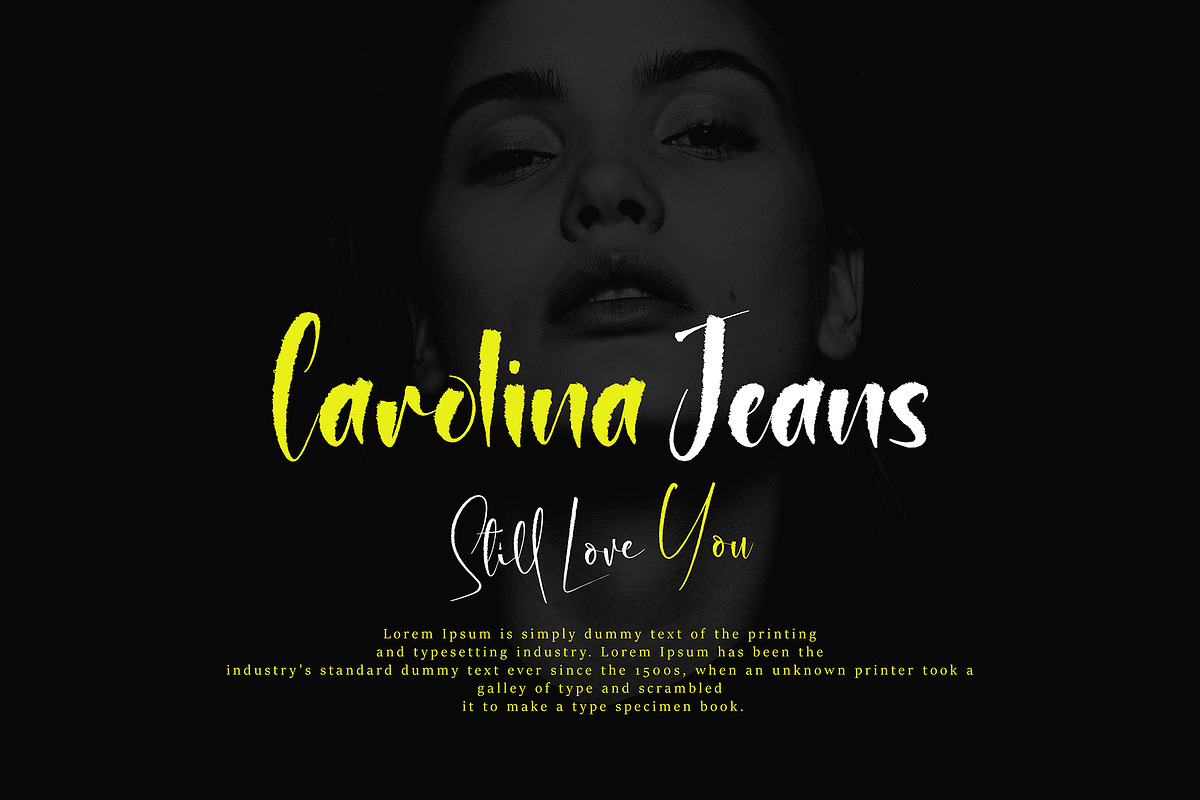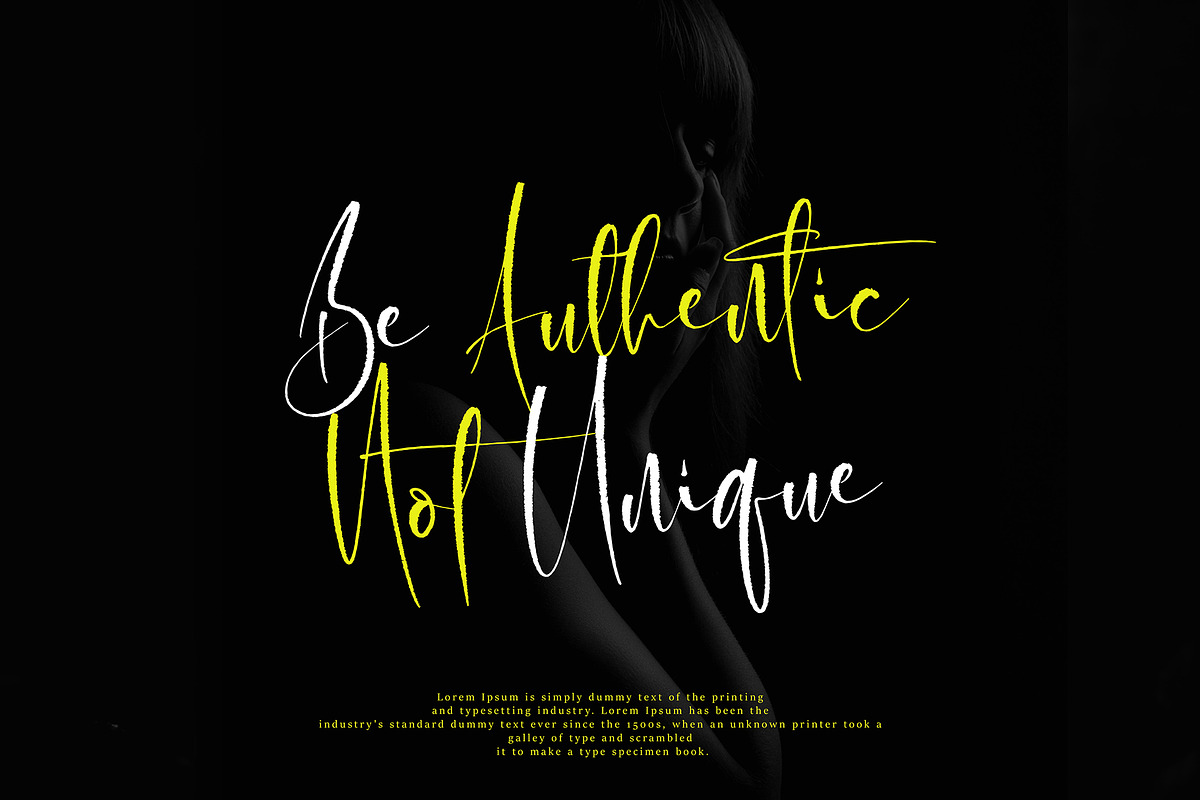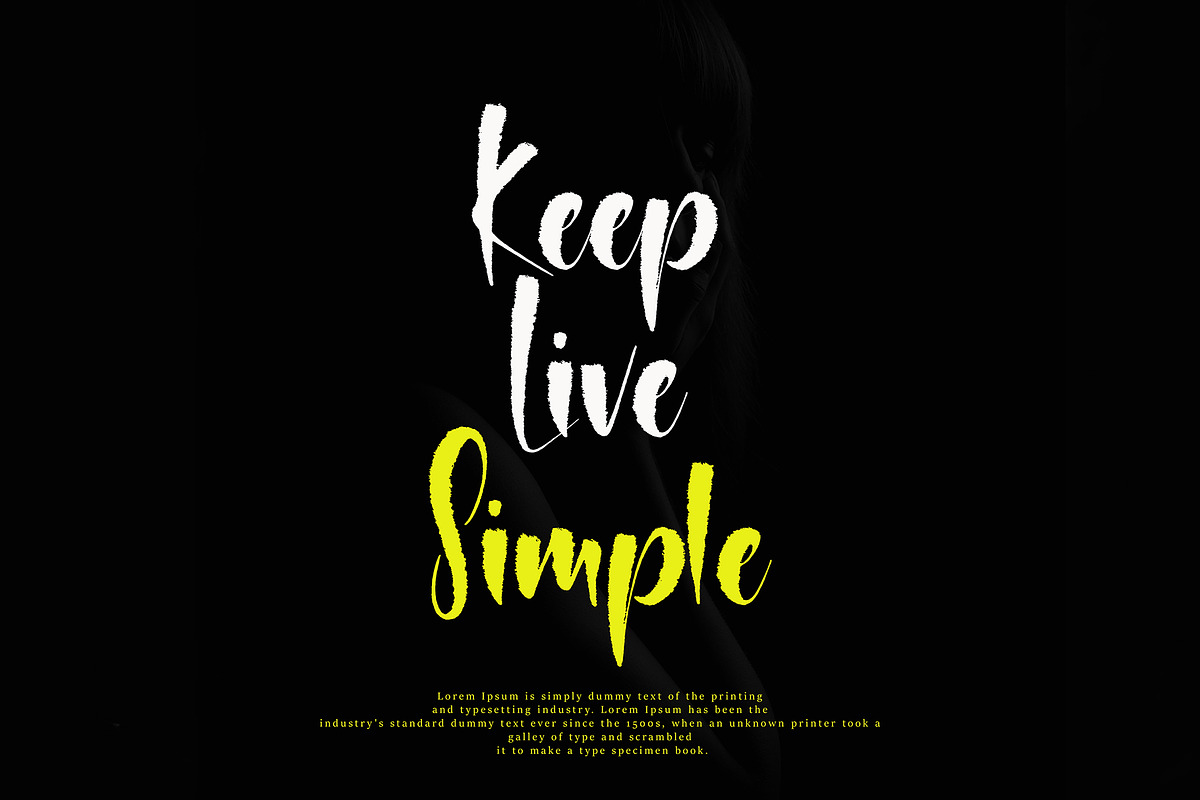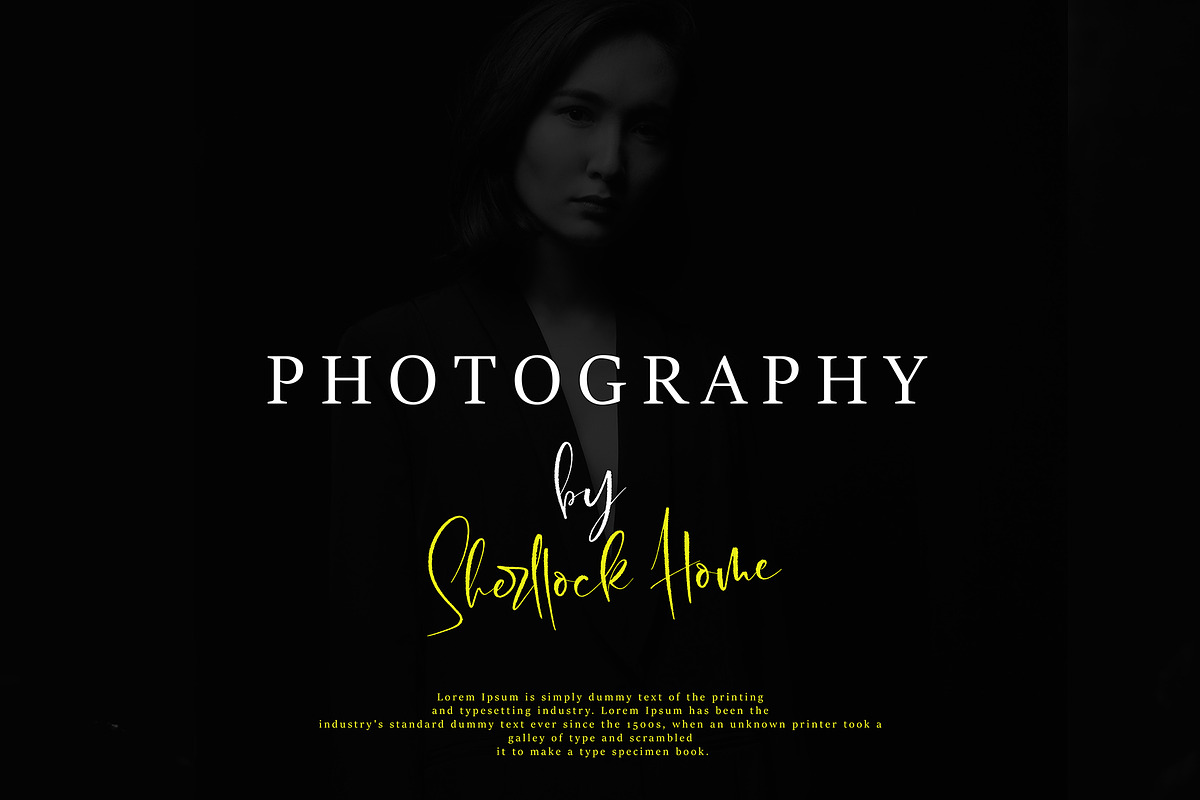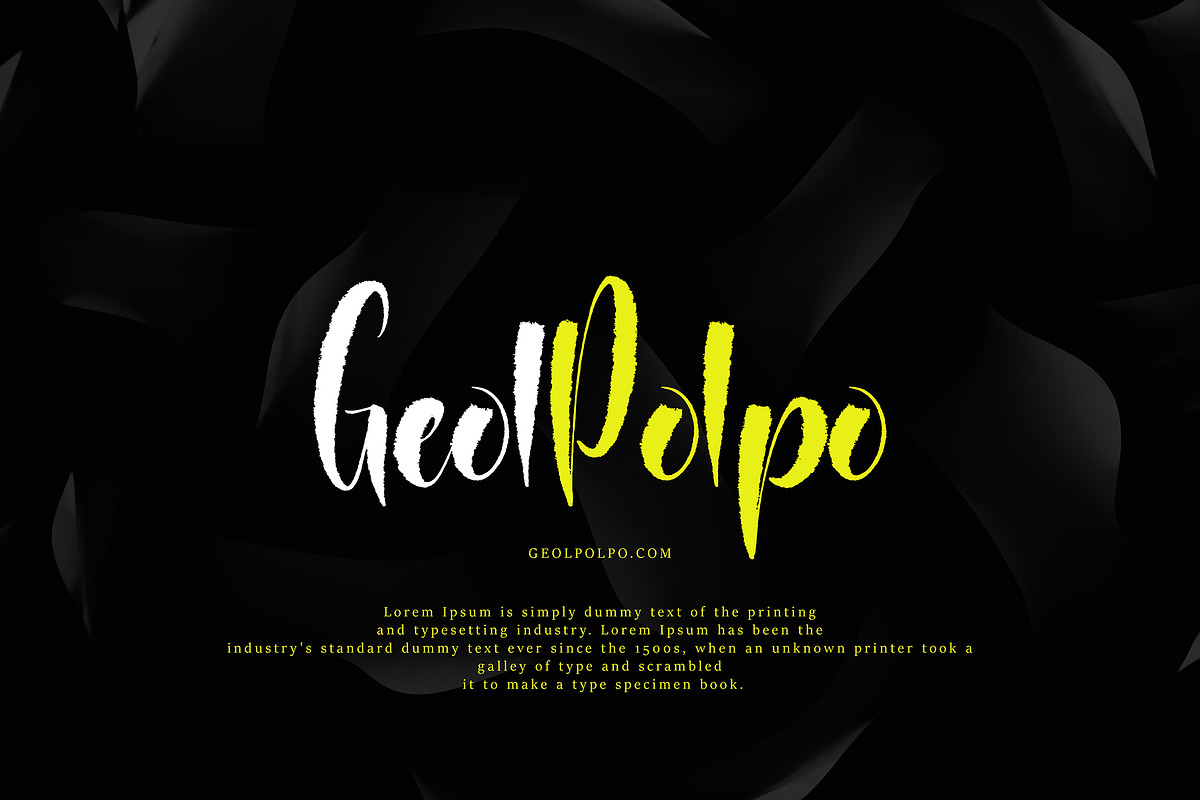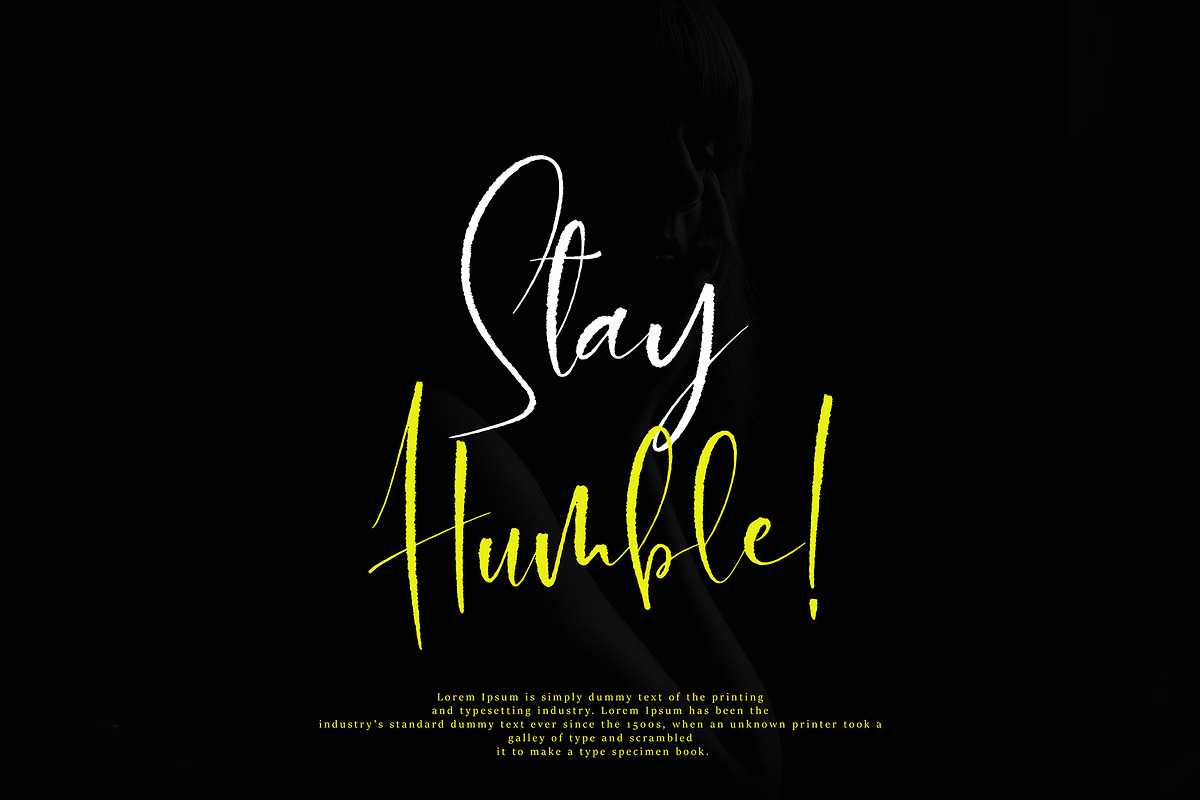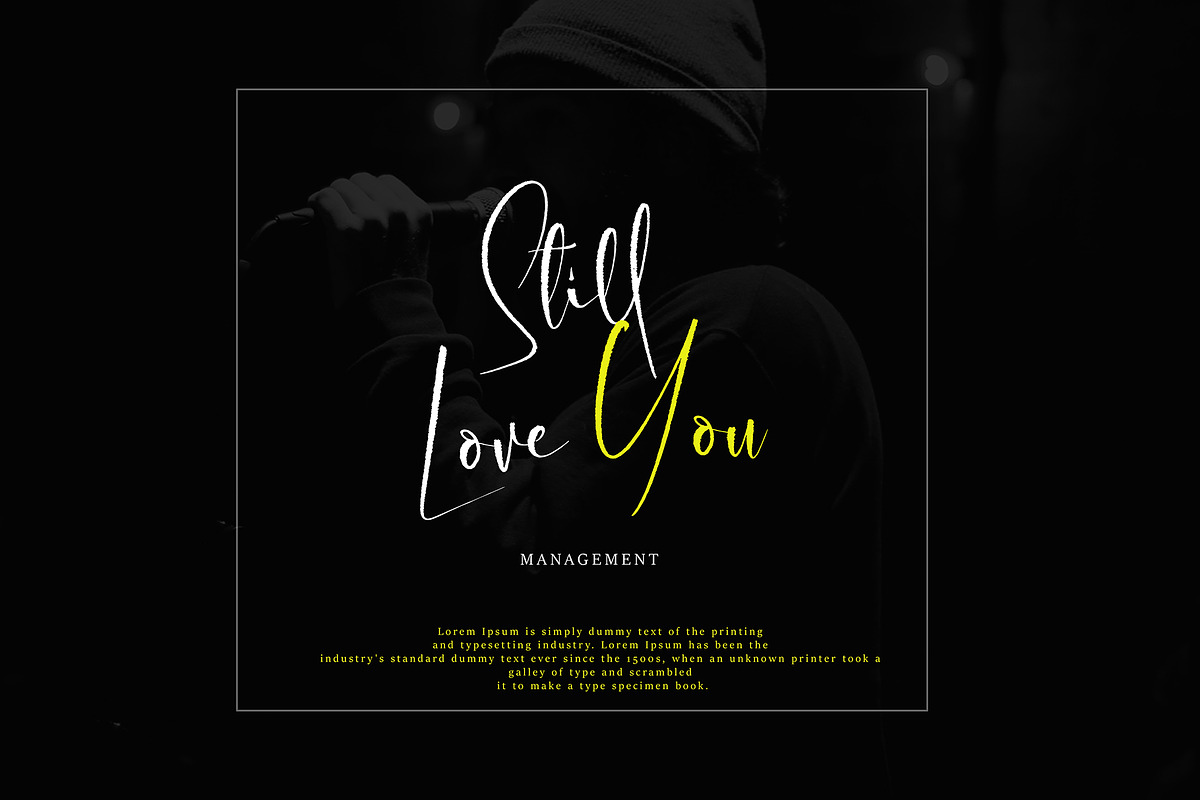
Shirasata Font Duo
Shirasata Font Duo font with modern Handwritten style, this font will perfect for many different project ex: quotes, logo, blog header, poster, banding, fashion, apparel, letter, invitation, stationery, etc...
Why Shirasata Font Duo is worth a look
Shirasata Font Duo by pineungtype fits naturally into Branding, posters, packaging, typography.